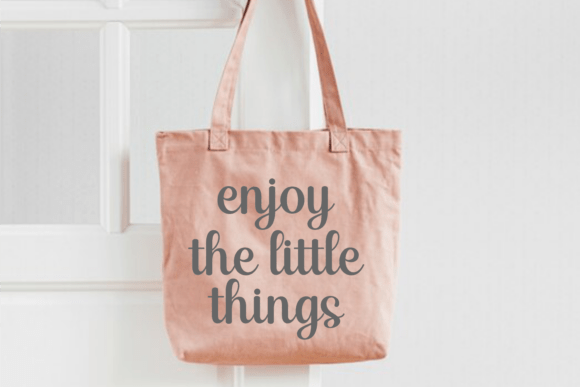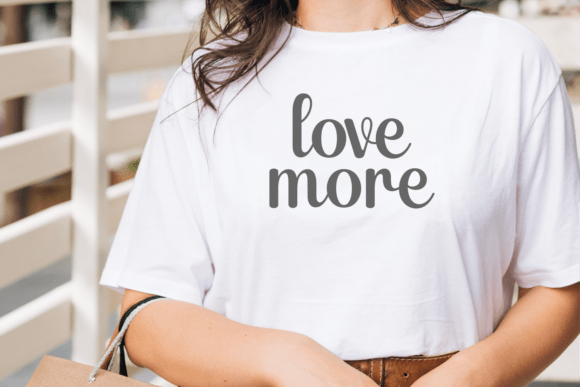
Magic Alphabet Font
Discover the charm of Magic Alphabet Script, a beautifully handwritten font exuding captivating allure. Perfectly encapsulating the charm of simplicity, this font transforms ordinary into extraordinary with its delightful handwriting flair. With its enchanting appeal, Magic Alphabet Script is the perfect match for greeting cards, tote bags, t-shirts, stickers, and even skincare pouches, delivering an artistically handwritten touch that radiates sophistication and elegance. Its captivating presence doesn’t stop there – it’s also a darling choice for home décor items such as pillows. Immerse yourself in the delightful vibes of Magic Alphabet Script, the ultimate font for enchanting the ordinary with an irresistibly charming touch.